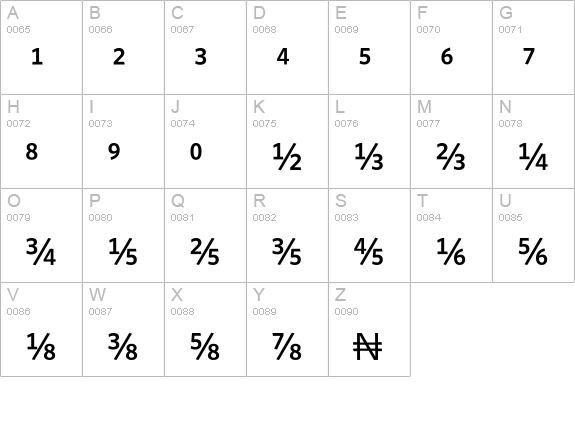
WhitneyNumeric-Medium is a balanced, medium-weight variant in the WhitneyNumeric typeface family \xE2\x80\x94 well suited to sub-headlines, navigation, and balanced editorial work.
WhitneyNumeric-Medium is a versatile and elegant font that combines functionality with a touch of sophistication. This font is perfect for any project that requires clear and legible numeric characters. Whether you are designing a financial report, creating an infographic, or developing a sleek website interface, WhitneyNumeric-Medium will add a professional and polished look to your work. The clean and modern design of WhitneyNumeric-Medium makes it suitable for a wide range of applications. Its medium weight strikes the perfect balance between boldness and subtlety, ensuring that your numbers stand out without overpowering the rest of your content. The carefully crafted curves and precise proportions of each character give this font a refined and timeless appeal. What makes WhitneyNumeric-Medium even more attractive is that it is available for free download at FontsMarket.com. Yes, you read that right - this high-quality font can be yours without spending a dime. FontsMarket.com offers a wide selection of fonts, and WhitneyNumeric-Medium is just one of the many exceptional options available. So why wait? Enhance your design projects with the elegance and versatility of WhitneyNumeric-Medium. Download it for free at FontsMarket.com and experience the difference it can make in your work. Whether you are a professional designer or a creative enthusiast, this font will elevate your designs to new heights. Don't miss out on this fantastic opportunity to add a touch of class to your projects. Get WhitneyNumeric-Medium today and let your creativity soar.